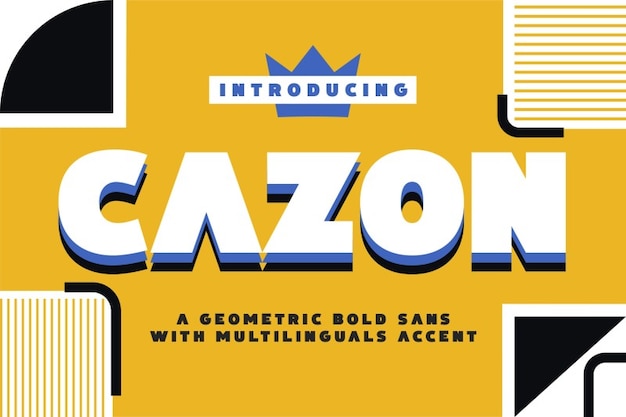
Cazon Font
Drizy Studio
The font for those who dare to be bold and creative. With its strong, geometrical shapes and distinct characters, it adds an element of edgy innovation to your projects. This font commands attention, making it ideal for eye-catching headlines, modern logos, and contemporary designs. "Cazon" is more than just a font; it's a creative statement that defies the norm.